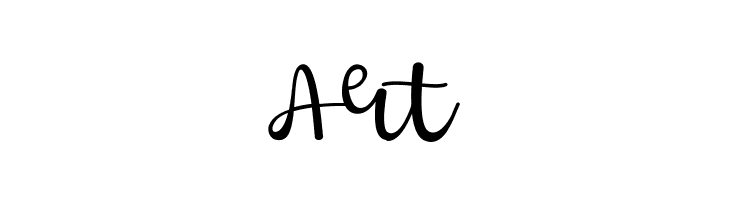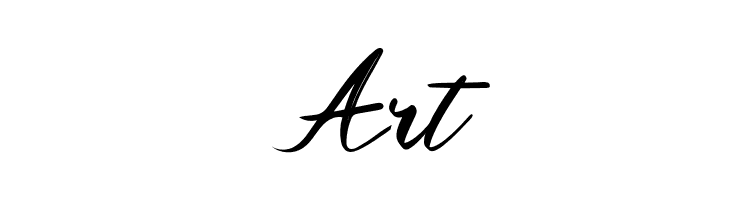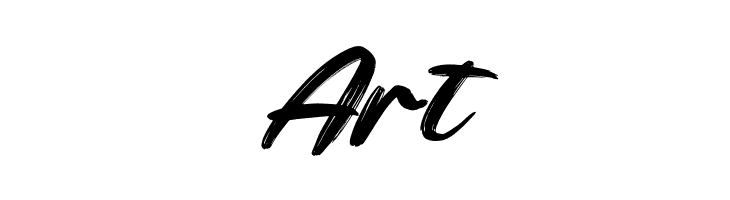
A playful and whimsical script font with smooth, flowing curves.
A bold, playful font with a hand-drawn, melted appearance.
A bold, distressed font with a grunge, vintage appearance.
A graceful, cursive script font with elegant, flowing strokes.
A bold, dripping effect font with a playful and creative style.
A bold, decorative font with playful and whimsical letterforms.
A bold, playful handwritten font with rounded strokes and a dynamic slant.
A modern, geometric font with sharp angles and clean lines.
A playful, handwritten font with whimsical details and dynamic strokes.
A bold, dynamic brush script font with a hand-painted look.